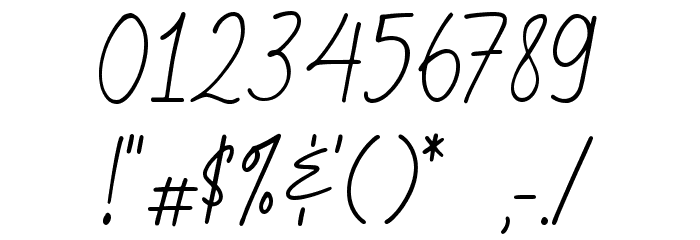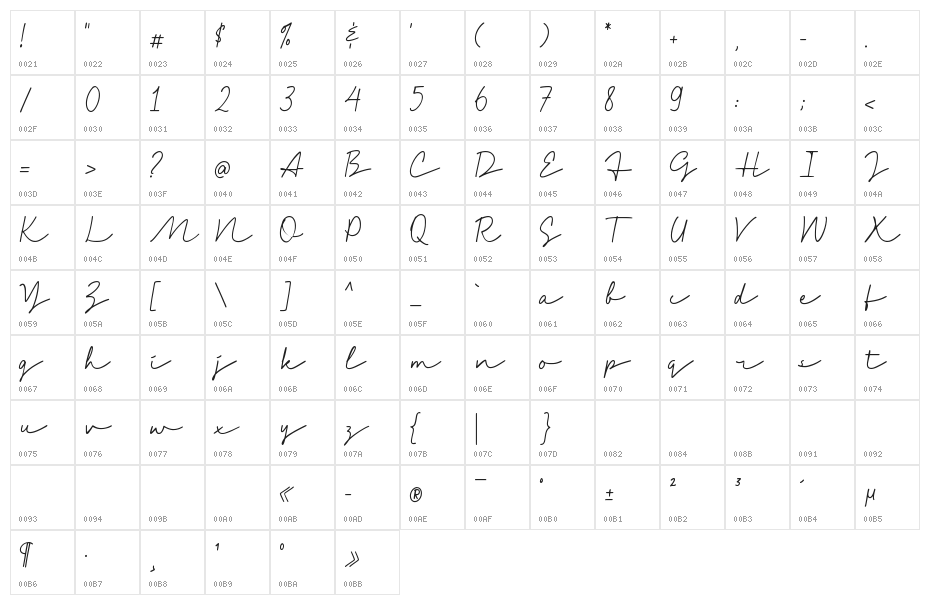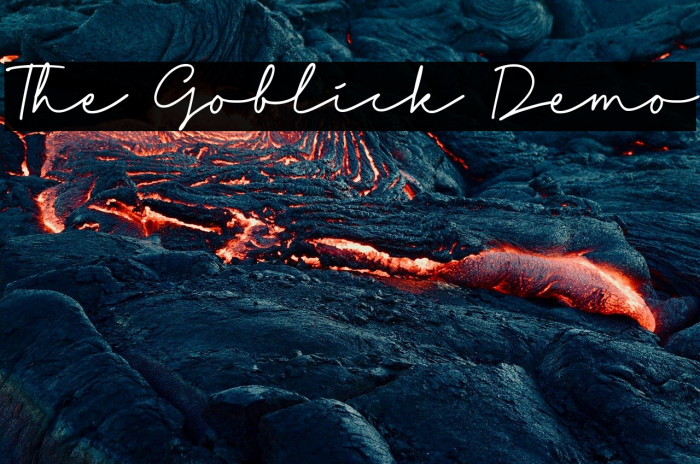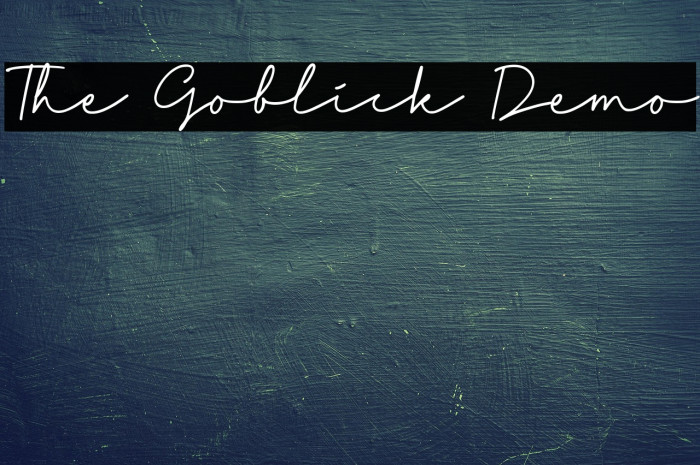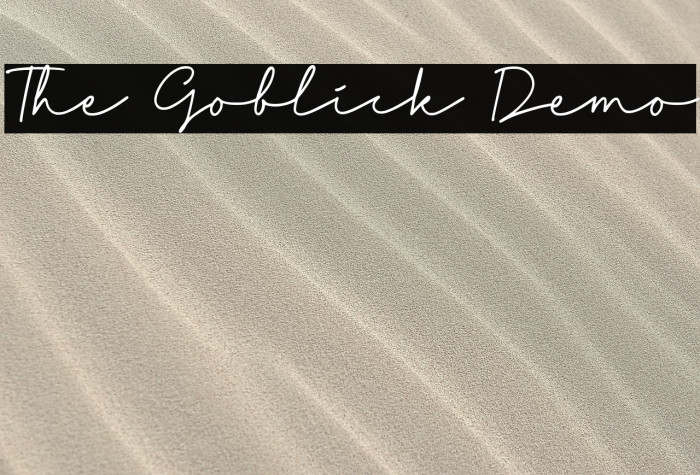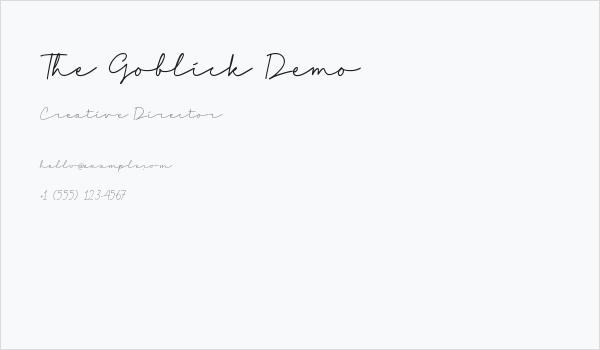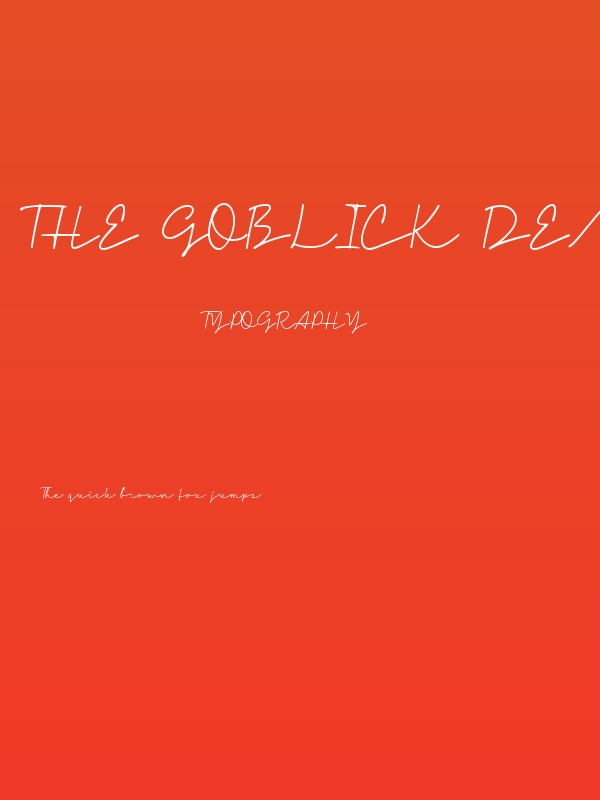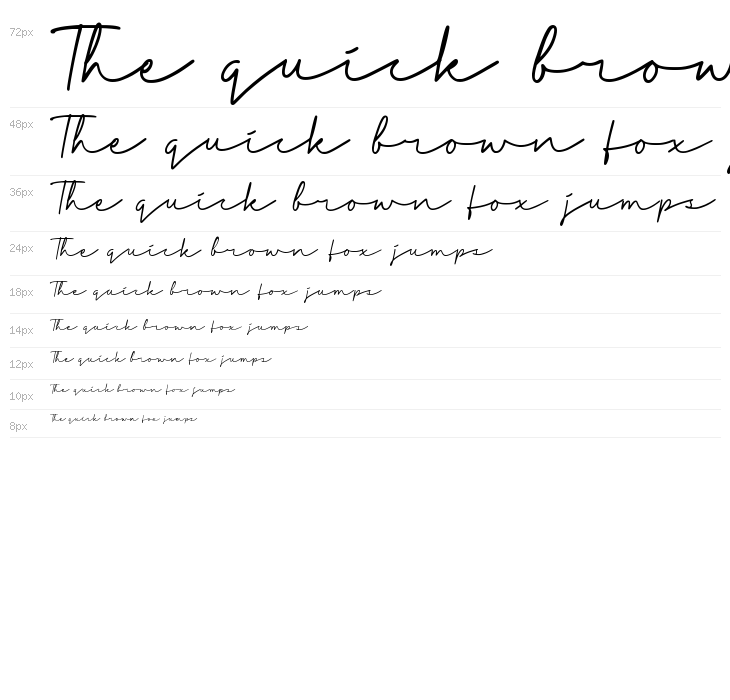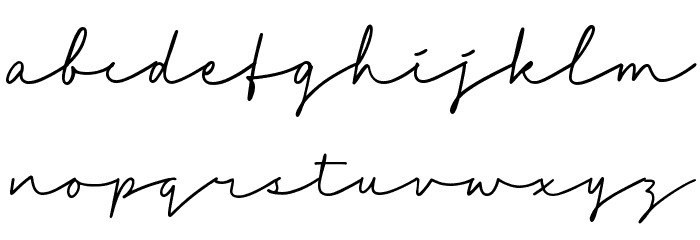
The Goblick Demo Font
The Goblick Demo Description
This font features a fluid, cursive style with a handwritten appearance. The letters are connected, creating a seamless flow that mimics natural handwriting. The uppercase letters maintain a consistent height, while the lowercase letters have a slight slant, adding to the casual and personal feel. The numerals and special characters are designed to match the overall script style, ensuring uniformity across all glyphs. The strokes are thin, with a low contrast between thick and thin lines, giving it a delicate and elegant look. This font is perfect for projects that require a personal touch or an informal yet sophisticated aesthetic.
| Use Case | Logos, Invitations, Personal Correspondence |
| Proposed Projects | Ideal for wedding invitations, personal letters, greeting cards, and branding that requires a personal touch. |